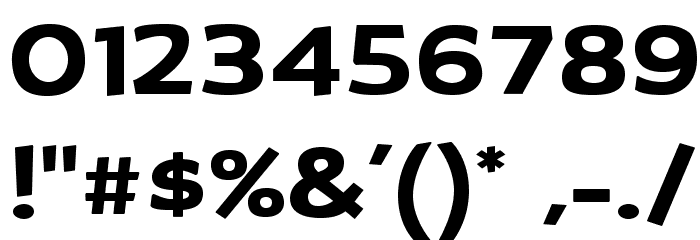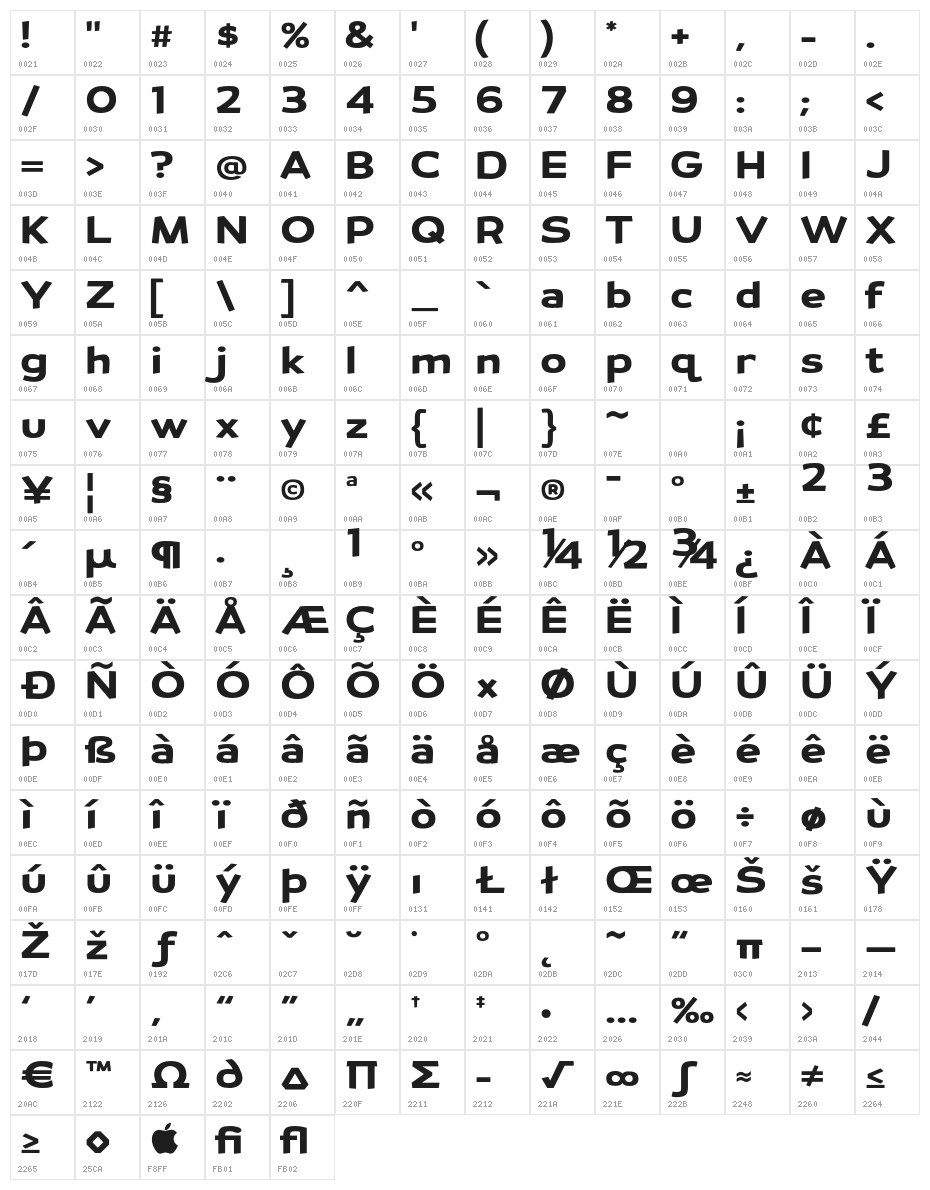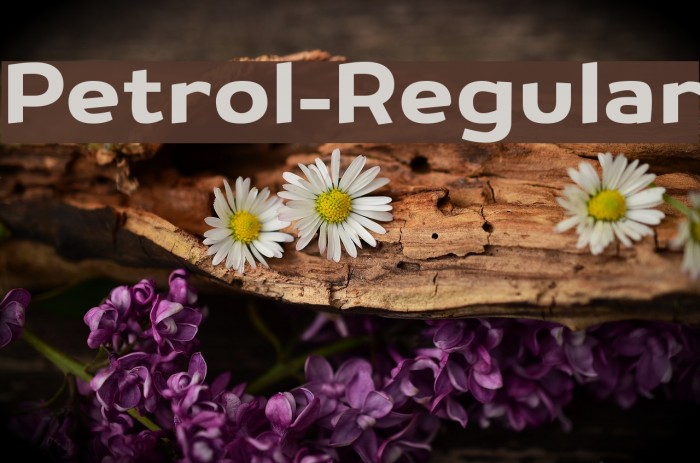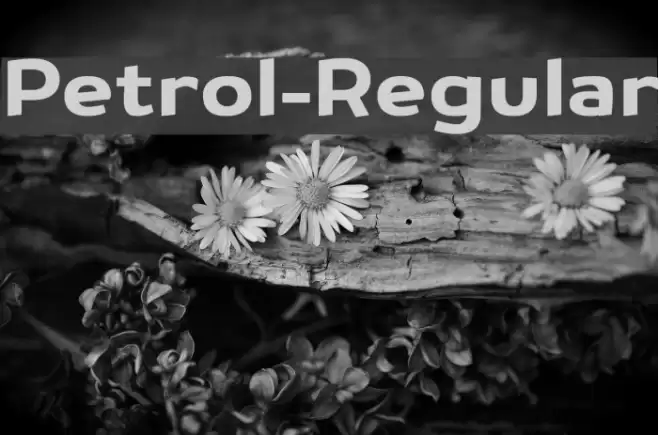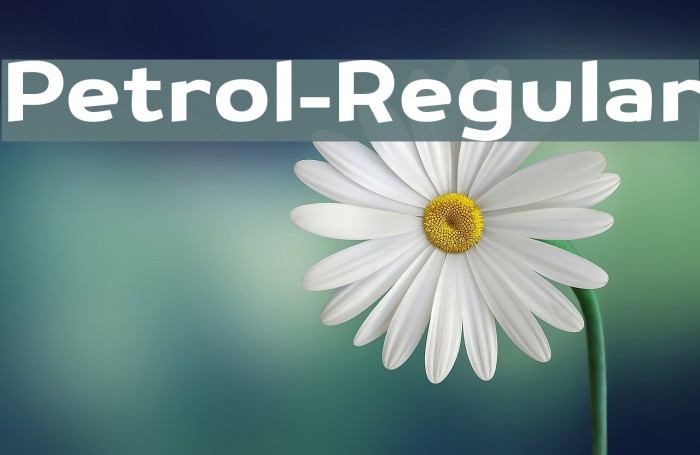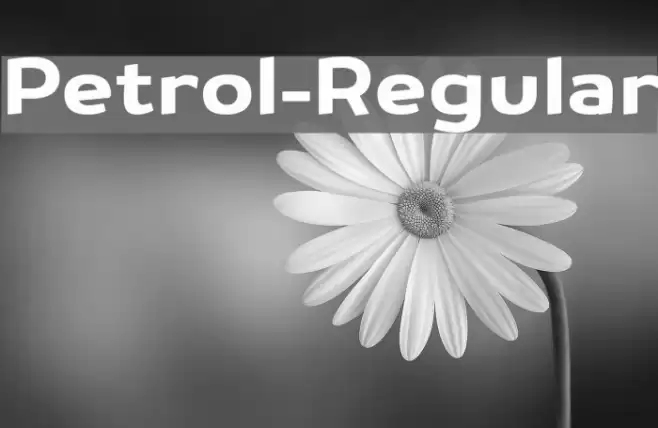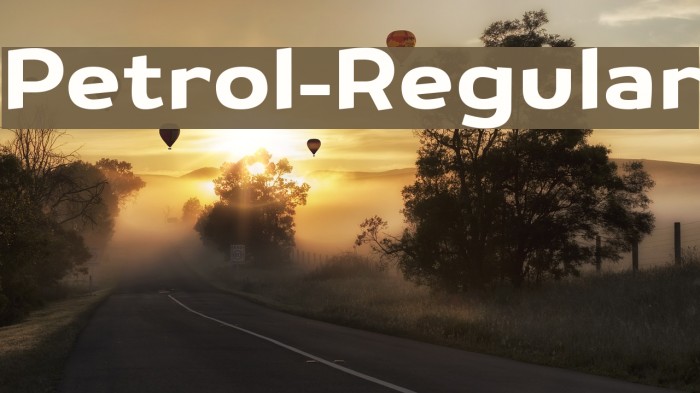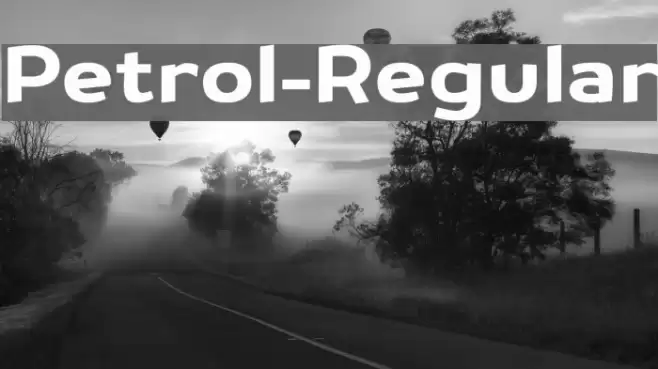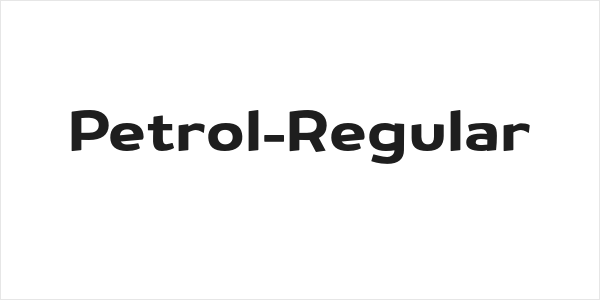
Petrol-Regular Font
Petrol-Regular Description
This font exhibits a bold and modern aesthetic with clean, geometric lines and a strong presence. The uppercase letters are uniform in height, providing a sense of stability and balance. The lowercase letters maintain a consistent x-height, contributing to readability. The numerals are clear and distinct, making them suitable for various applications. Special characters are well-defined, enhancing the font's versatility. The overall design is sleek and contemporary, making it ideal for modern branding and digital interfaces.
Use CaseHeadlines, Logos, Digital Interfaces
Proposed ProjectsIdeal for branding, digital interfaces, advertising, and headlines.